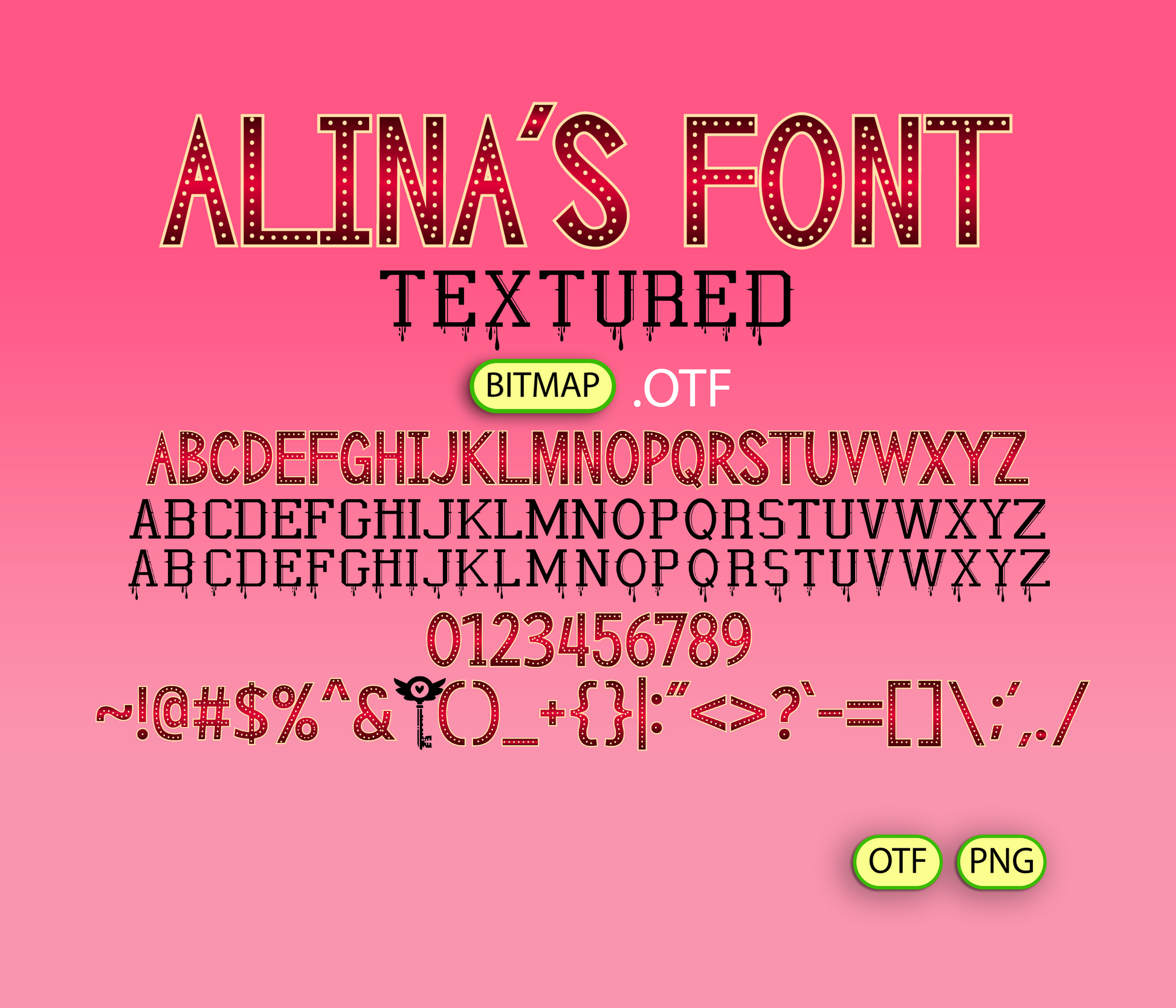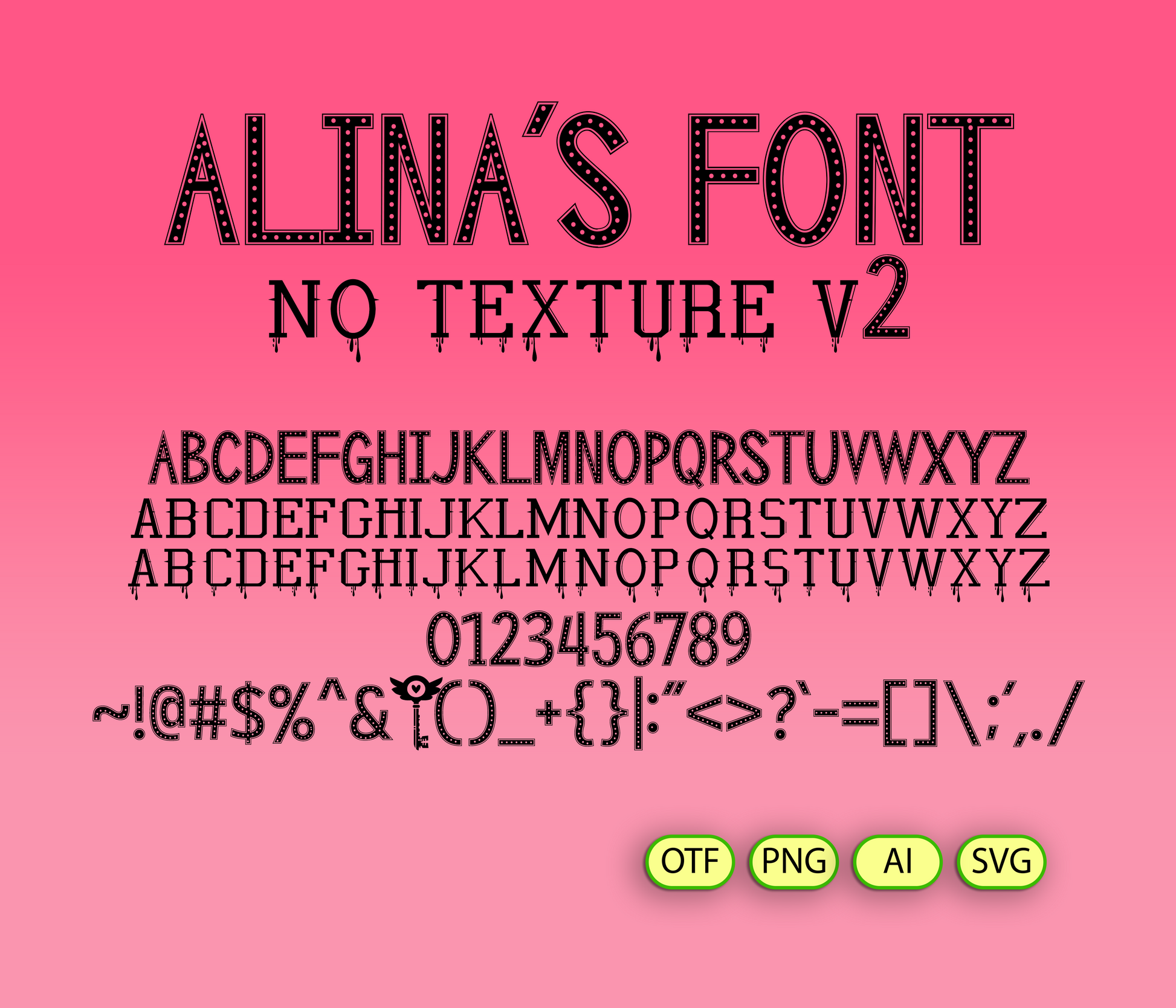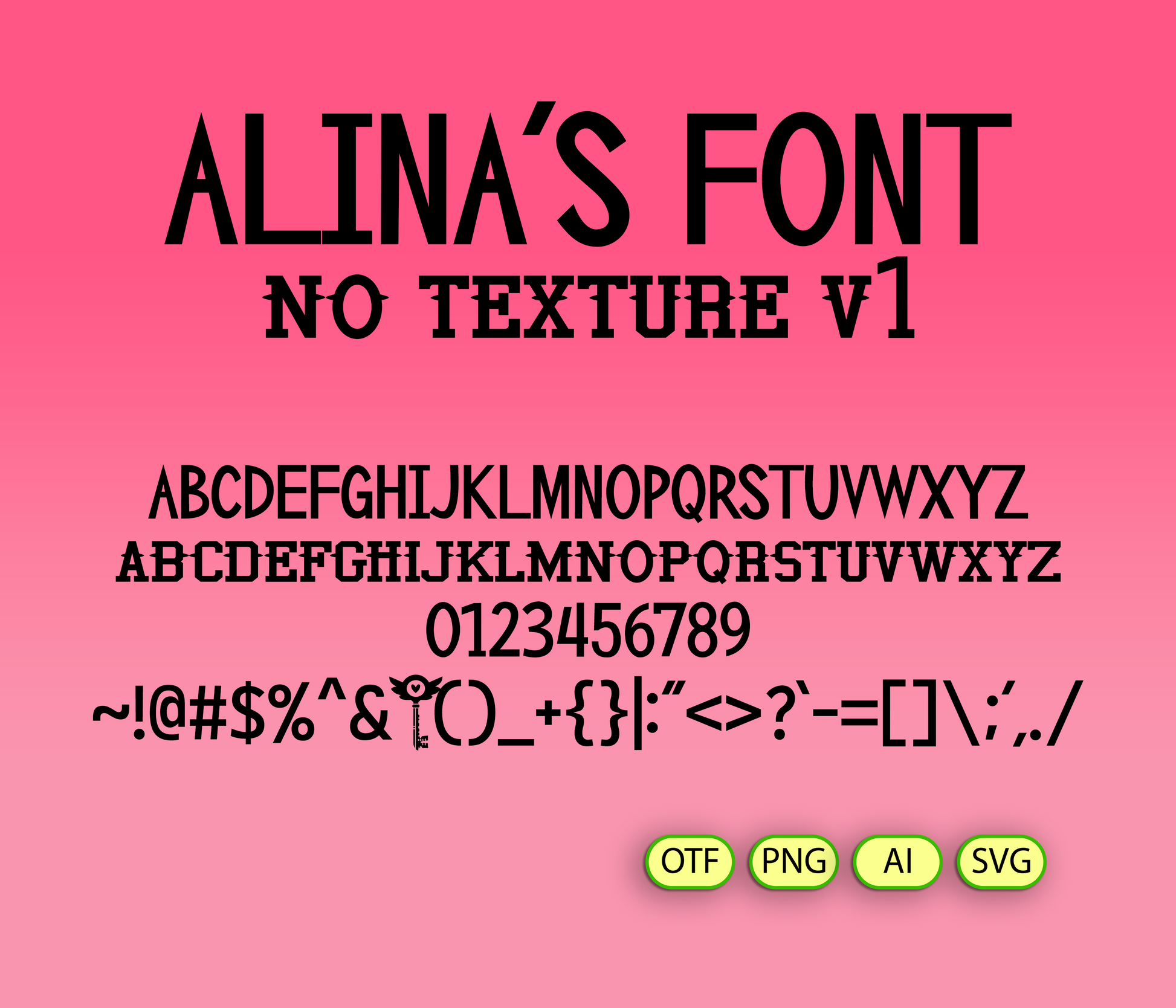
Infernal Inn Font Textured Bundle
Infernal Inn Font
Step into the vibrant underworld with our Infernal Inn font, capturing the essence of a devilishly charming establishment and its colorful cast of characters. Perfect for animation enthusiasts, event organizers, and designers, this font brings the dynamic, jazzy spirit of these beloved hellish heroes to your projects. Create theatrical materials, merchandise, or digital content with the musical energy of these underworld denizens.
Our Infernal Inn font features bold, swinging lines and playful characters reflecting the jazz-age inferno of these beloved characters. Ideal for:
- Event Promotions: Create eye-catching invites, posters, and banners for animation screenings, theatrical shows, and themed parties that capture the musical spirit of hell.
- Merchandise Design: Perfect for t-shirts, posters, and accessories that showcase the cabaret style of the underworld.
- Digital Media: Enhance websites, blogs, and social media with dynamic headers and graphics that express the jazzy charm of redemption stories.
- Animation Content: Add authentic flair to fan art, character designs, and creative projects inspired by hellish tales.
- Personal Projects: Bring devilish excitement to scrapbooking, DIY crafts, and home decor inspired by the world of redemption and musical comedy.
Our font pays tribute to the beloved underworld series, empowering your designs with its theatrical and jazzy spirit. Whether crafting promotional materials, designing merchandise, or adding a dynamic touch to personal projects, this font communicates the bold essence of these hellish characters. Ready to inject devilish charm into your creations? This font is your key to exciting, impactful design.